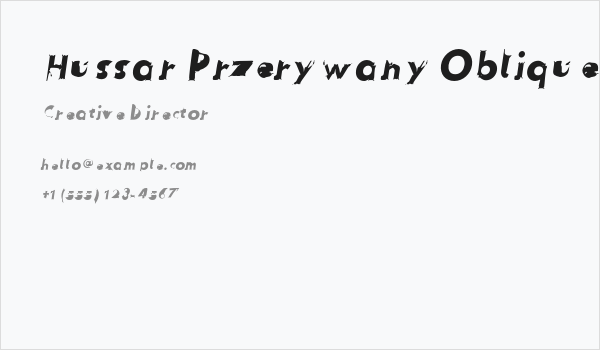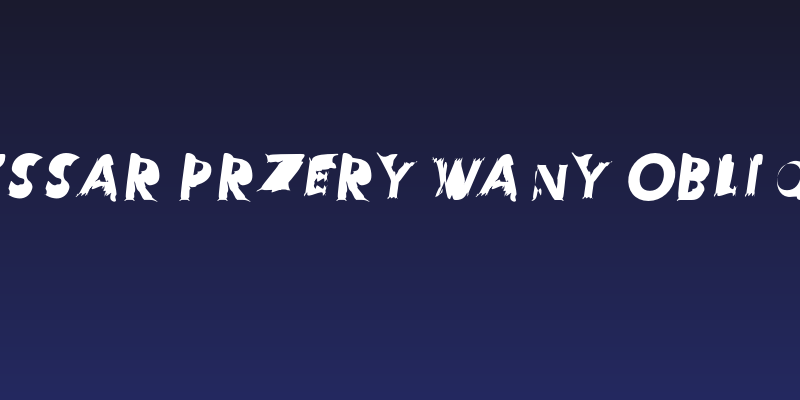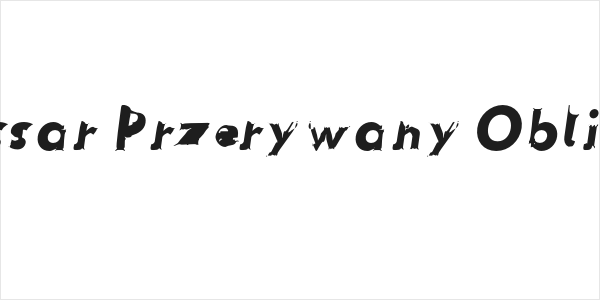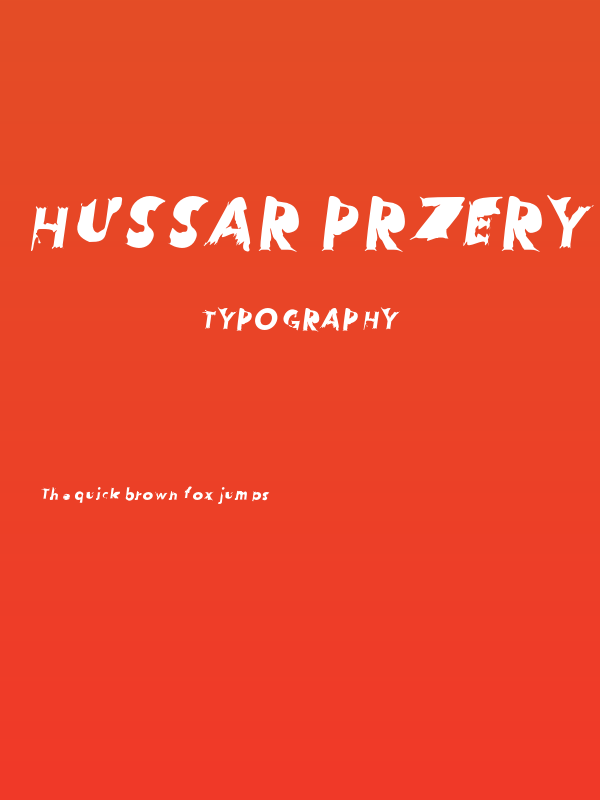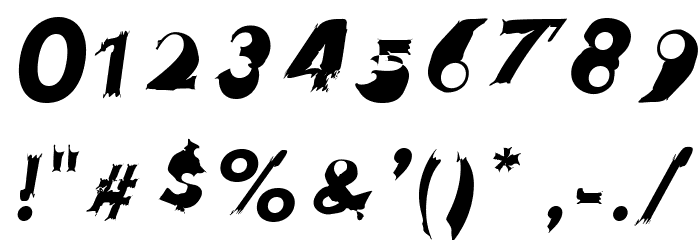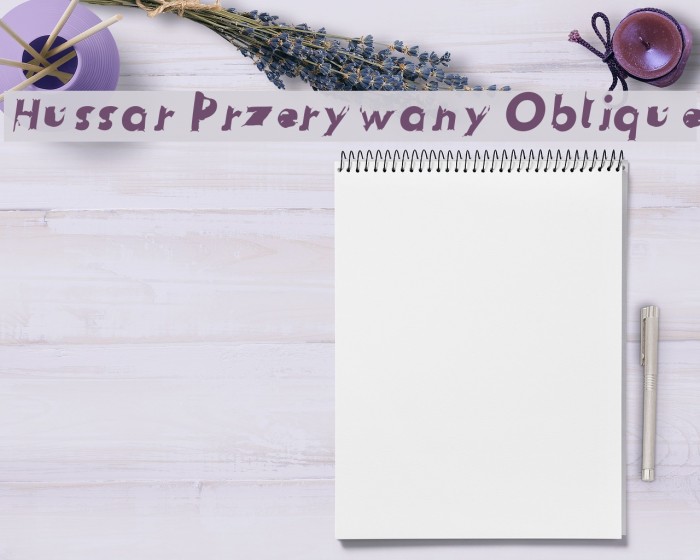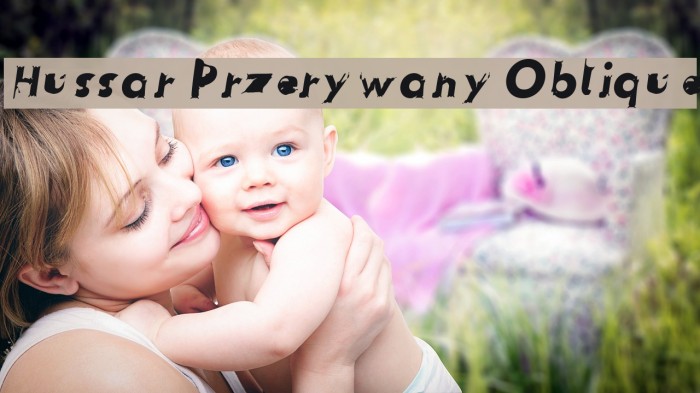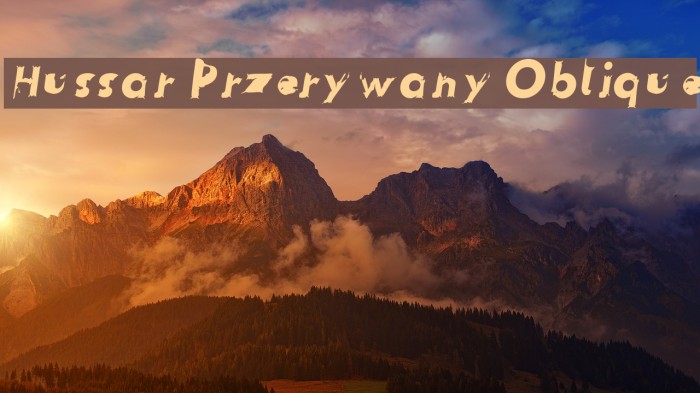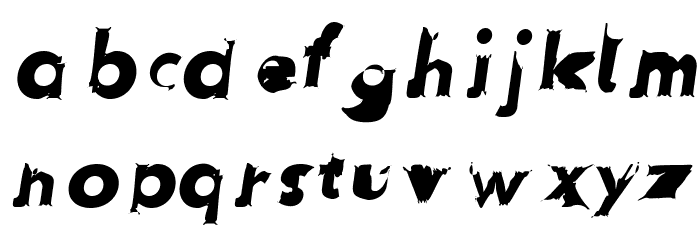
Hussar Przerywany Oblique Font
Hussar Przerywany Oblique Description
This font features a dynamic and energetic style with a distressed, brush-like appearance. Each character appears as if it has been painted with bold, sweeping strokes, giving it a sense of movement and urgency. The letters are slightly slanted, enhancing the oblique nature of the design. The irregular edges and varying stroke thicknesses contribute to its unique, artistic flair. This font is highly decorative and stands out with its bold, expressive character forms, making it suitable for eye-catching designs.
| Overall Style | Modern, Artistic |
| Proposed Projects | Ideal for posters, album covers, branding projects, and any design requiring a bold, artistic touch. |